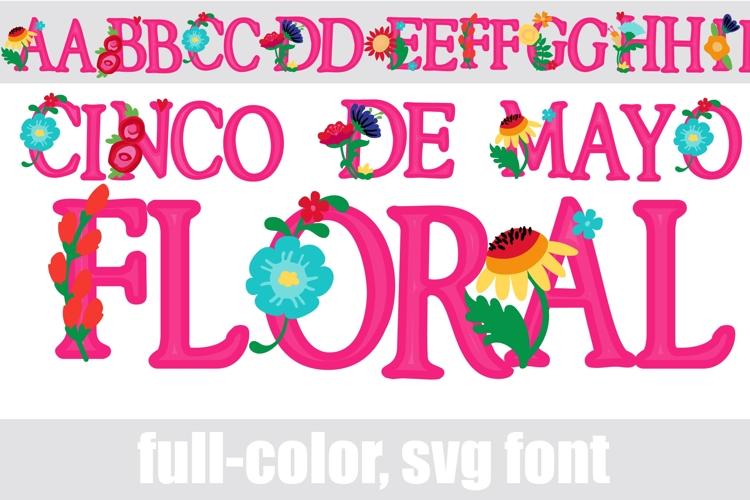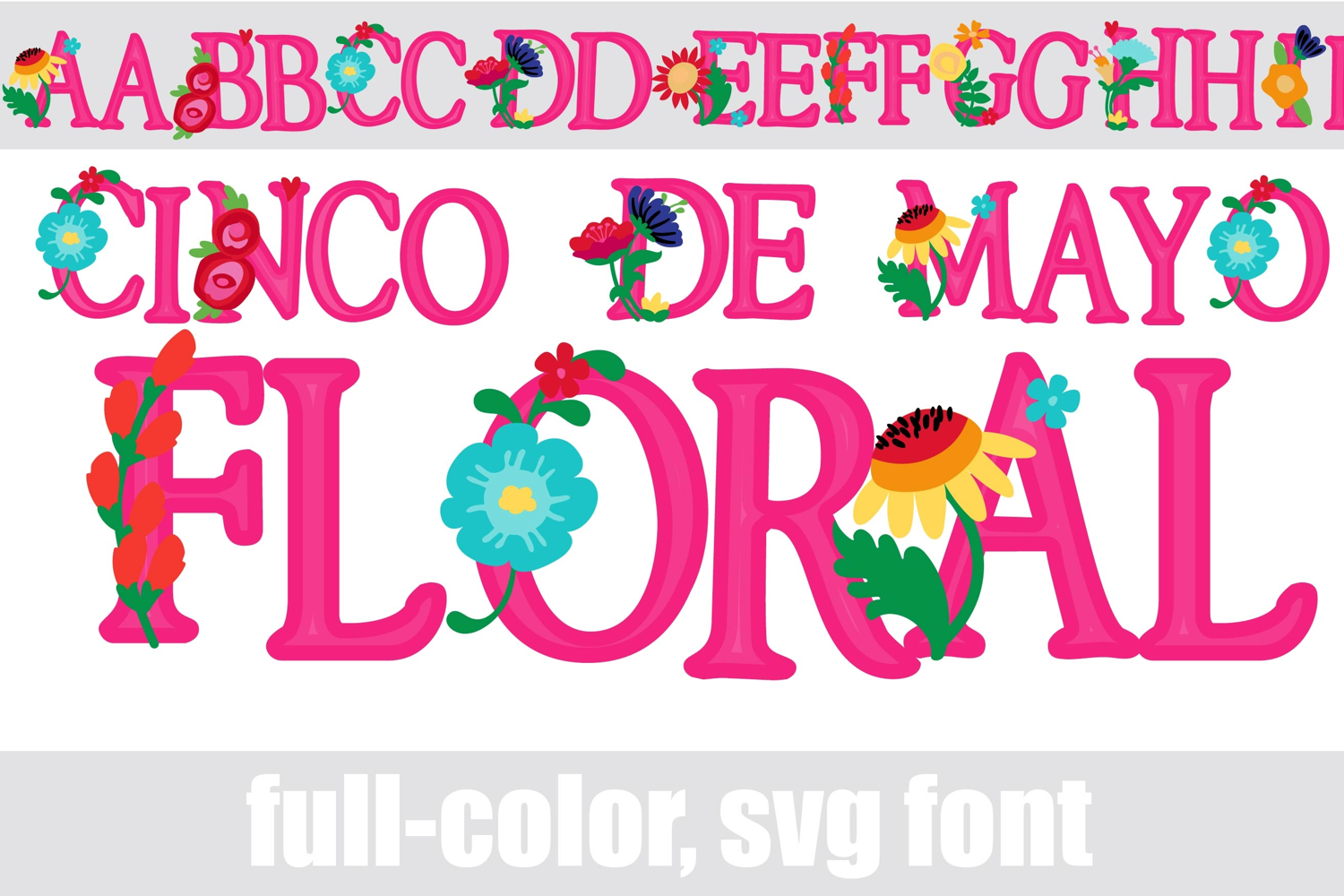
Cinco De Mayo Floral Color Font
This full-color, font is floral serif font in a bright color palette. There is an alt case of additional colors of each letter that you can access through your system's character map.